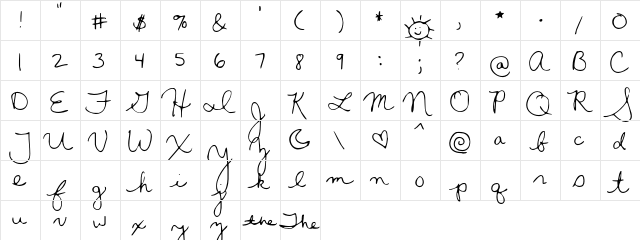
FG Chelsea's Handwriting Regular
Design Context for FG Chelsea's Handwriting Typeface
FG Chelsea's Handwriting brings a calligraphic fluidity to the page — its connecting strokes and expressive curves give it an unmistakably human quality.
Font Pairing: Combine FG Chelsea's Handwriting with a simple geometric sans for maximum contrast — the tension between flowing curves and clean structure is a classic typographic pairing.
Pro Tip: Use FG Chelsea's Handwriting for short runs of text — names, titles, or taglines. Extended body copy in script faces tires the eye quickly.